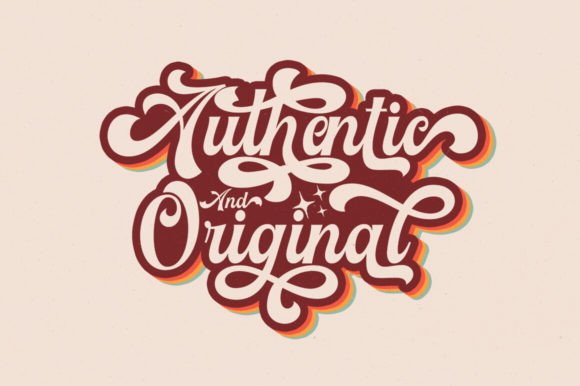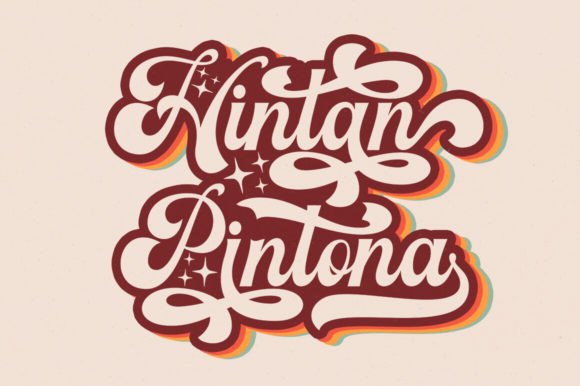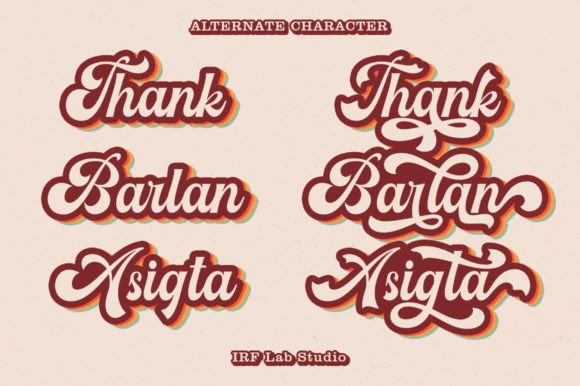
Asilyina Ragvina Font
About the Asilyina Ragvina Font
Meet Asilyina Ragvina Font, a stunning font that brings a touch of elegance and professionalism to any design. Asilyina Ragvina – Classic Retro Font, with curves and lines so soft that this font looks pretty and realistic.
With 355 Characters, Asilyina Ragvina is perfect for all your design projects, like invitation cards, product logos, food brands, logos, and much more. This font is PUA encoded which means you can access all of the amazing glyphs and ligatures with ease!
Asilyina Ragvina’s soft curves and classic retro style make it ideal for headlines, logos, and short-form text on packaging or invitations. Its charm works well for brands emphasizing nostalgia, vintage aesthetics, or a handcrafted feel. However, its decorative nature makes it less suitable for body text or UI elements requiring high readability.
For optimal pairing, consider a clean sans-serif like Montserrat or Lato for a modern contrast, or a classic serif such as Garamond or Playfair Display for a more traditional feel. A simple geometric sans-serif could also provide a strong counterpoint, enhancing the font’s inherent elegance.
The font exudes a friendly yet sophisticated personality, best suited for projects that value charm and a touch of vintage appeal. Avoid using it in contexts requiring aggressive or modern minimalism.
Asilyina Ragvina Font Usage Examples
Asilyina Ragvina Font Example